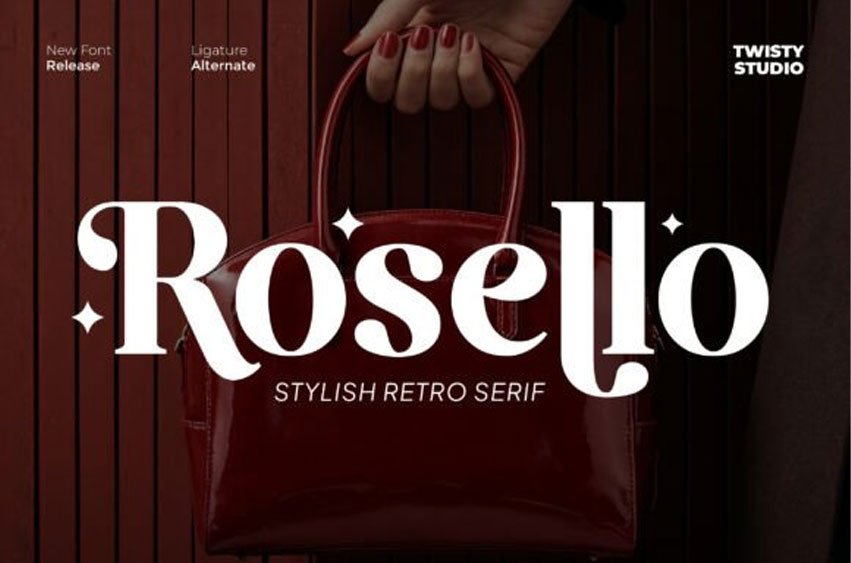
Rosello Font is a stylish retro serif font designed to bring a perfect blend of vintage charm and modern elegance to your creative projects.
Featuring distinctive serif details, smooth curves, and balanced letterforms, Rosello captures the nostalgic spirit of retro typography while maintaining a clean and contemporary feel.